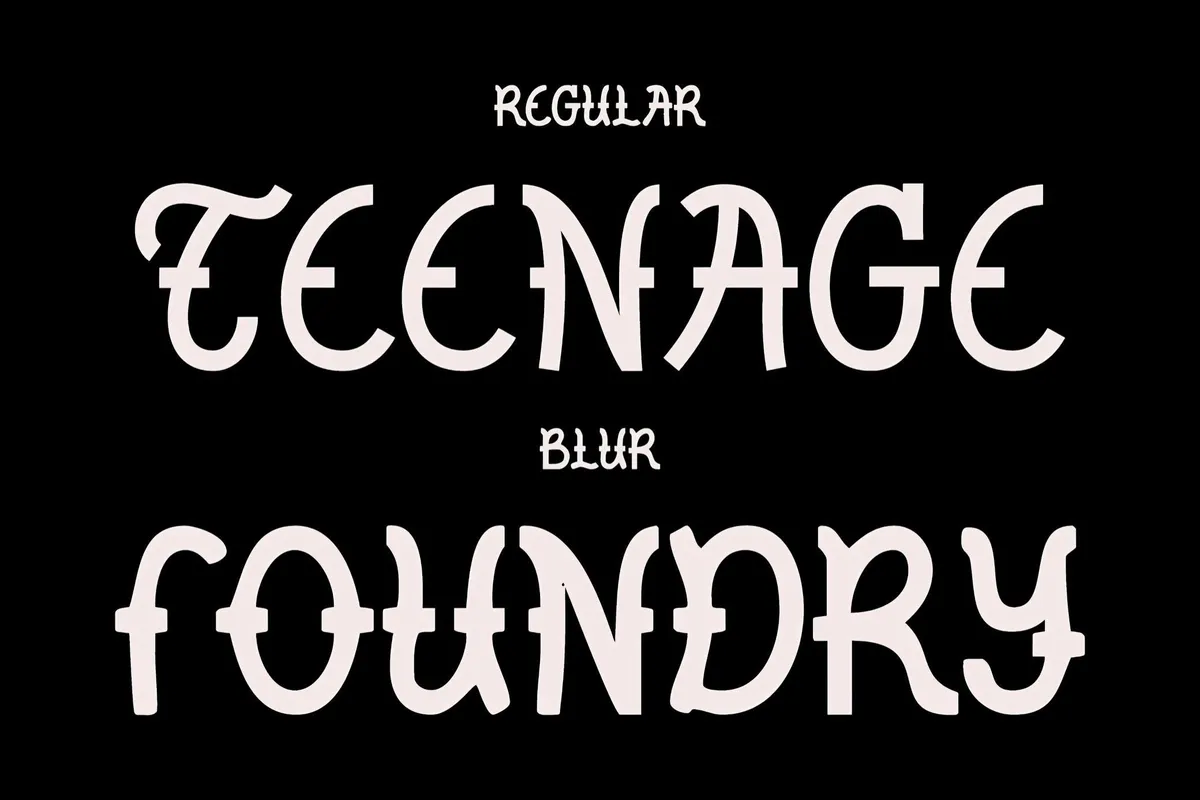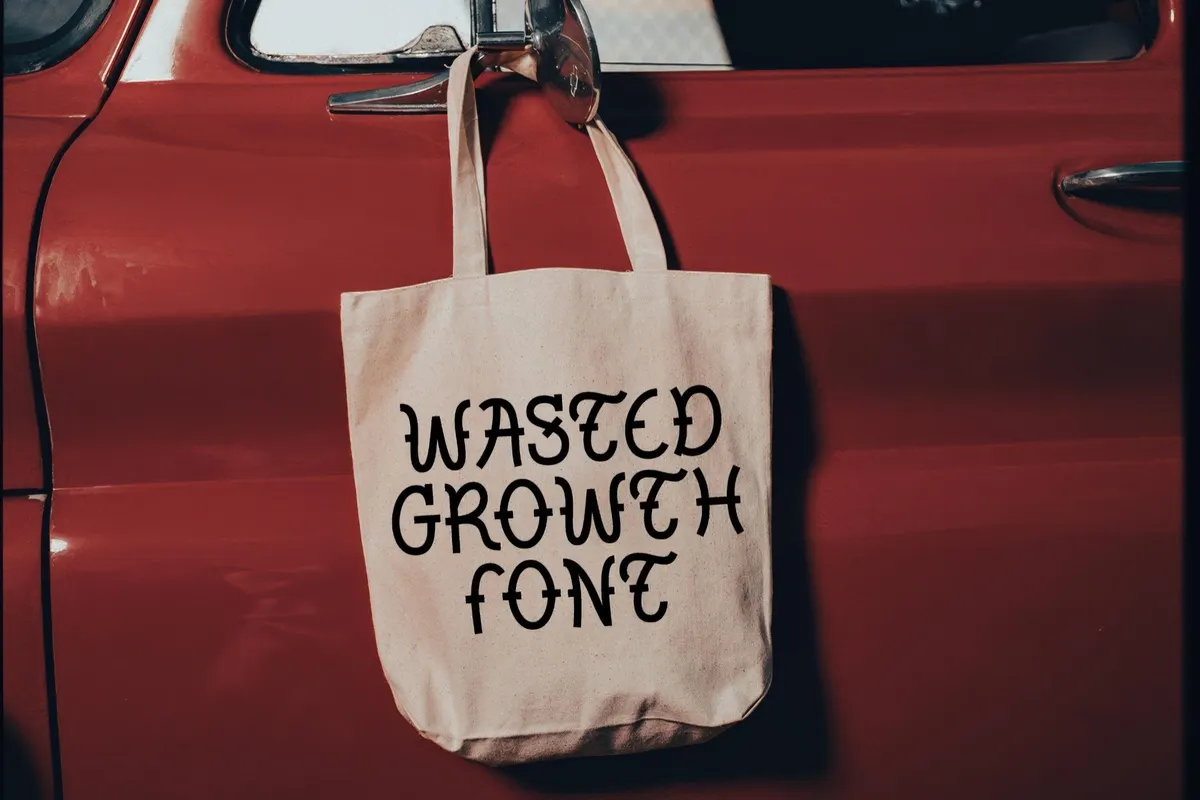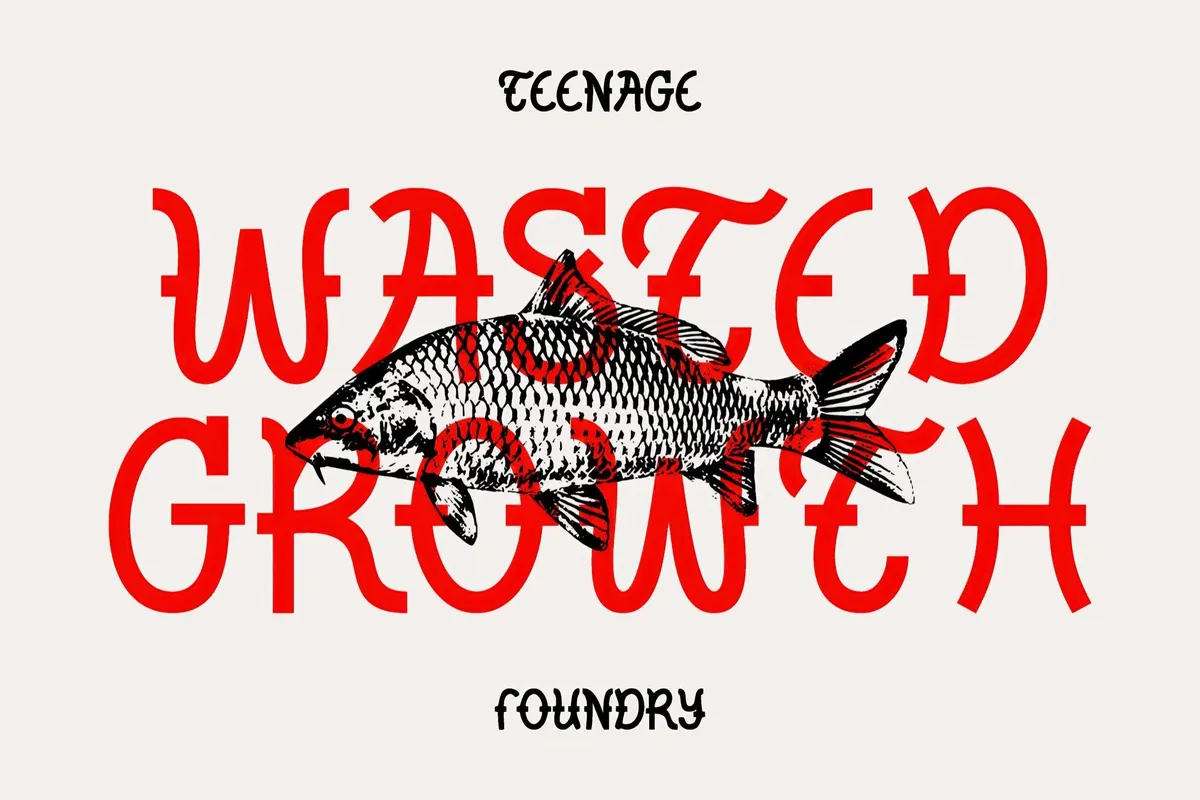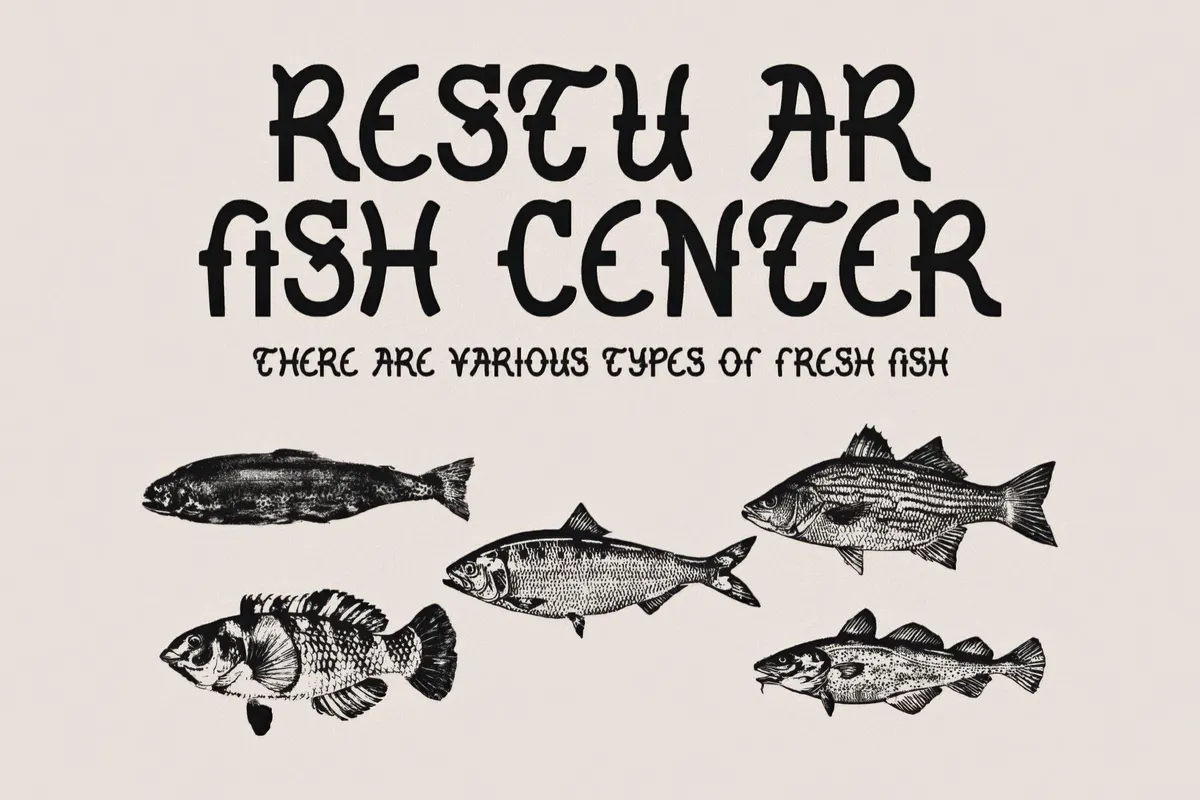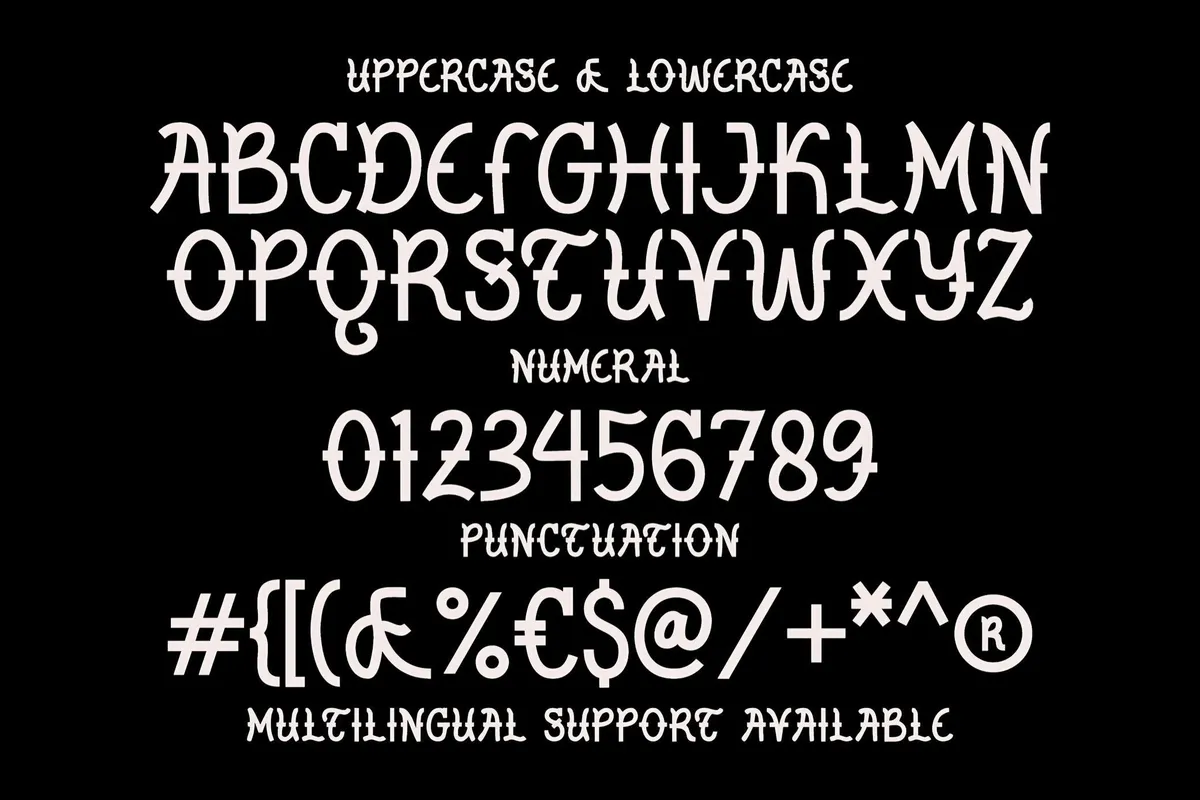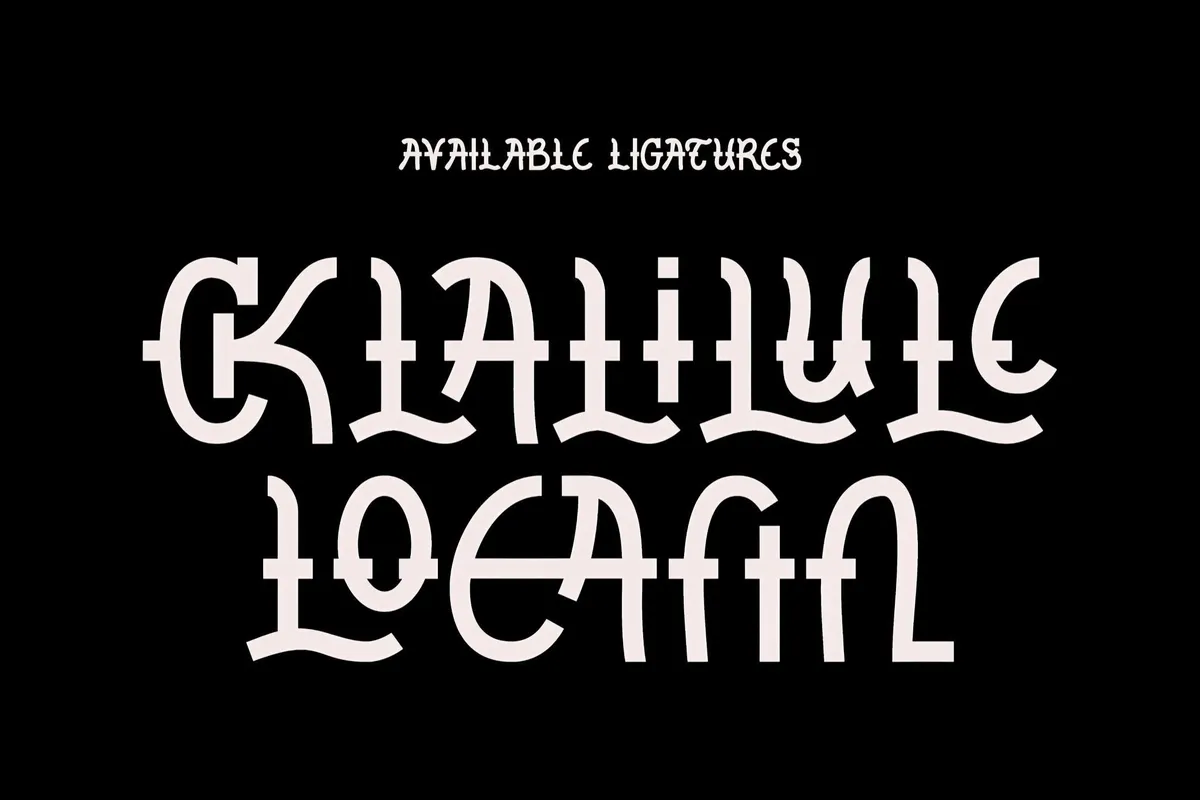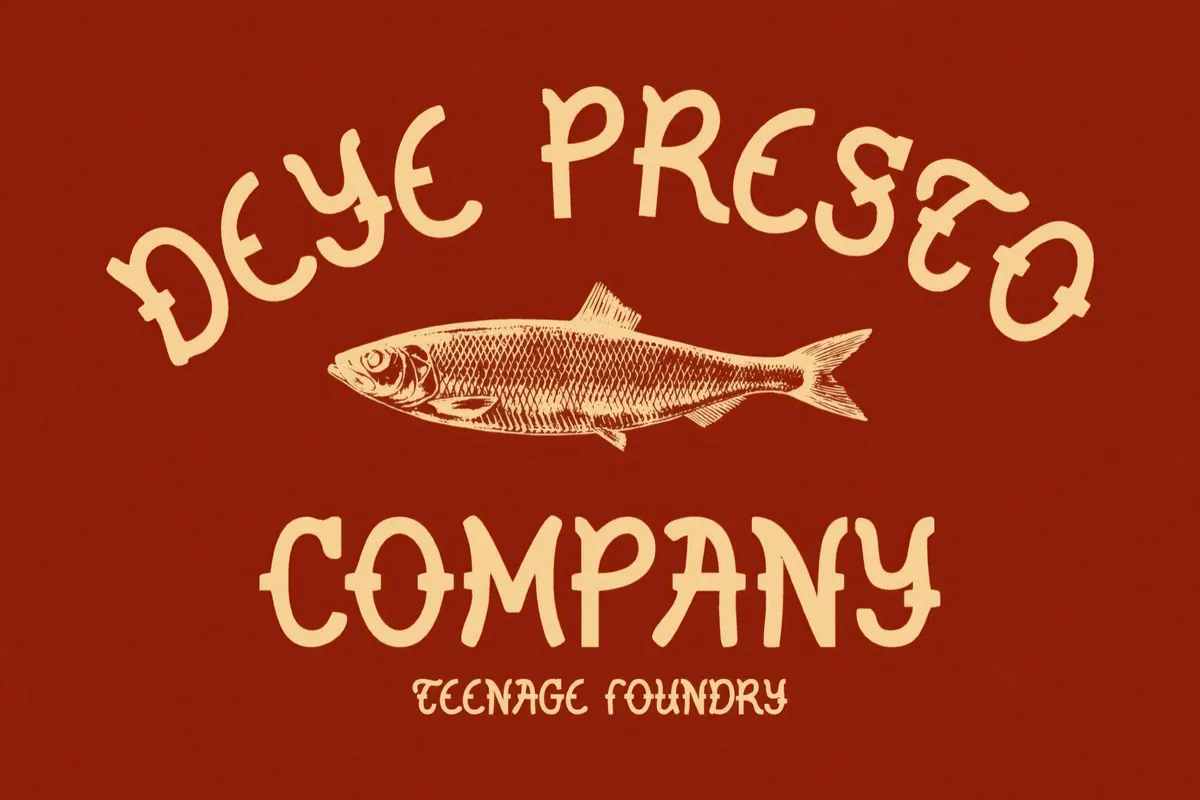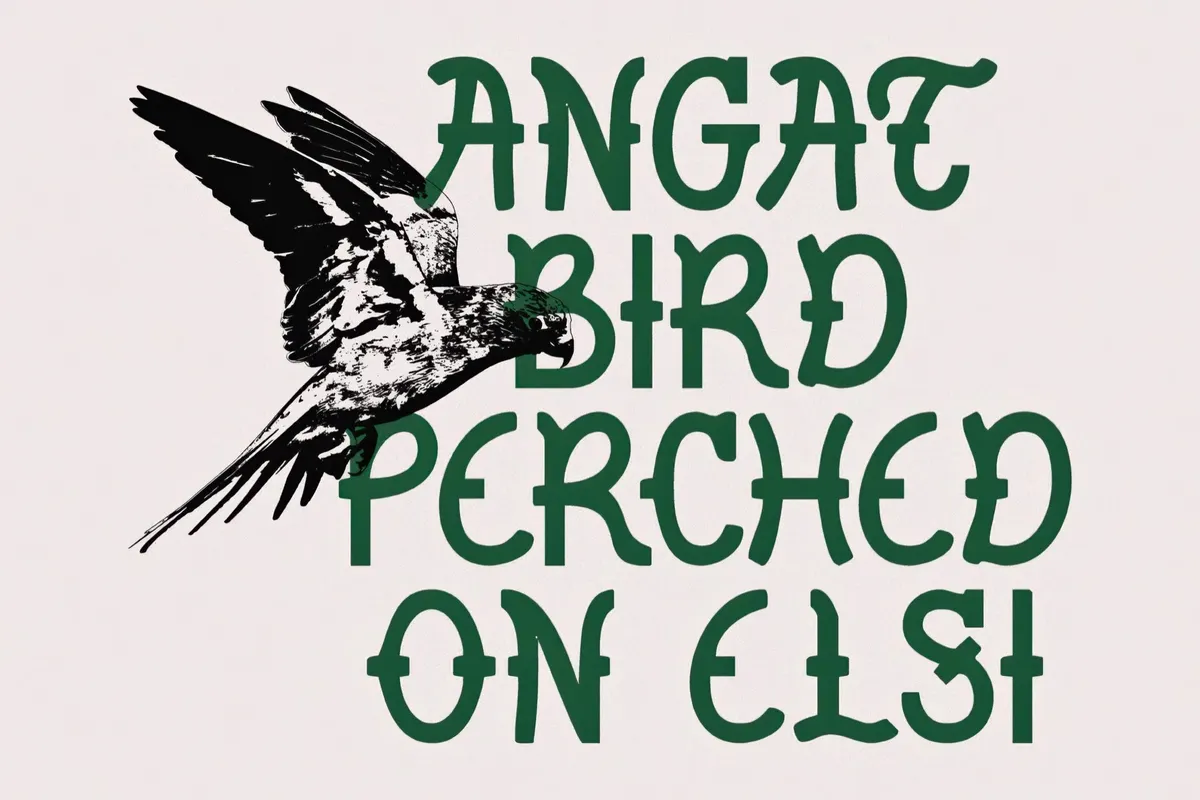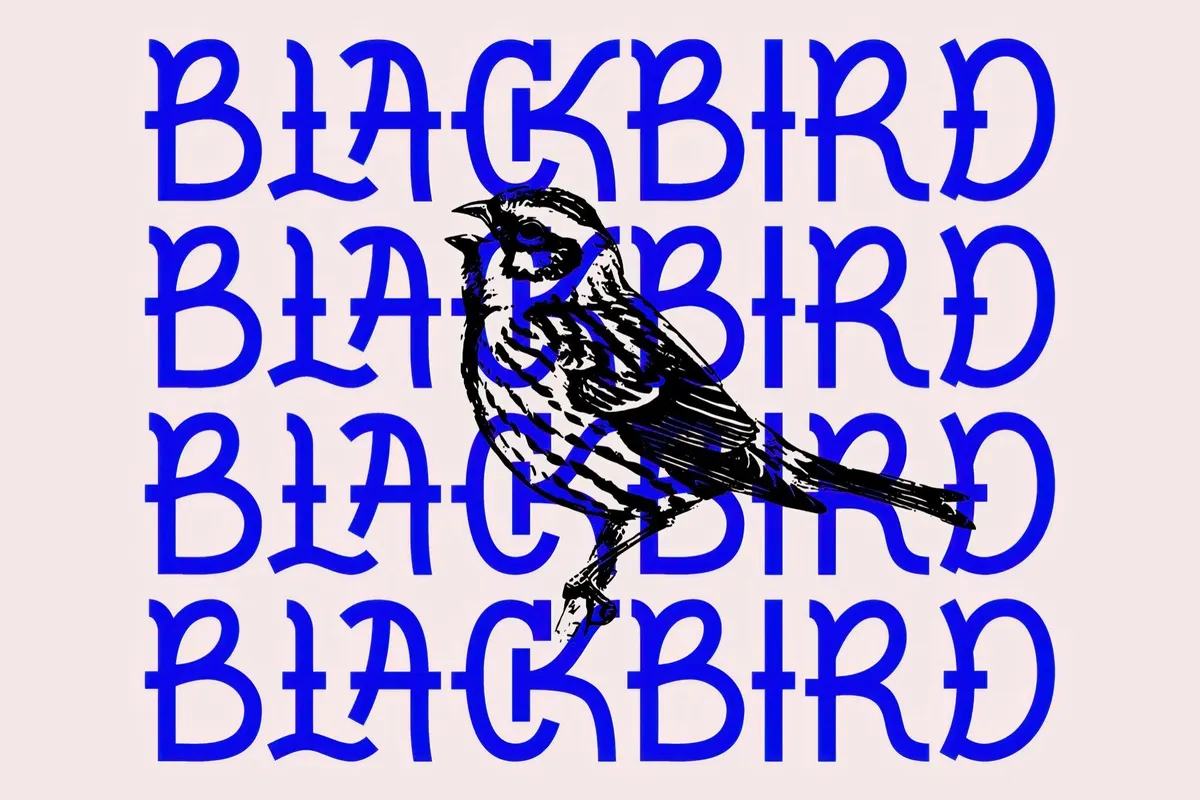
TF Wasted Growth — Display Font
This font's got all the scruffy, couldn't-care-less vibe of Smells Like Teen Spirit, but make it type. Then go, use it in a project where a "clean-cut" feel just isn't gonna cut it. It's raw. It's real. It's rock 'n' roll for your art.
Wasted Growth's like someone took your nan's calligraphy and threw it into a mosh pit. Two styles — Regular and Blur — 'cause who needs polish, right? Uppercase, lowercase, numbers, and all the wonky punctuation you could need, plus multilingual support so your rebellion can go international. This is the kinda font you slap on gig posters, dodgy zines, album covers, or anything that says, "I refuse to be mainstream."